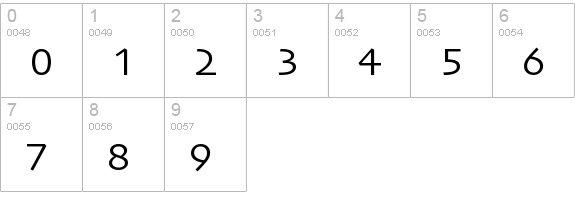
Skia Regular is the standard, neutral variant in the Skia typeface family \xE2\x80\x94 well suited to general body text, paragraphs, and standard typographic work.
Skia Regular font is a versatile and stylish typeface that is perfect for a wide range of design projects. With its clean and balanced letterforms, Skia Regular exudes a sense of elegance and professionalism. This font features a classic and timeless aesthetic, making it suitable for both modern and traditional designs. Its readability and legibility ensure that your message will be communicated clearly and effectively. Skia Regular is available in a range of weights and styles, allowing for flexibility and creativity in your designs. Whether you are designing a logo, creating a website, or crafting a printed piece, Skia Regular will add a touch of sophistication to your work. One of the best things about Skia Regular is that it is free to download at FontsMarket.com. This means that you can use this high-quality font in your projects without having to worry about any licensing fees or restrictions. It is freely available for personal and commercial use, making it an excellent choice for designers on a budget. Don't miss out on the opportunity to enhance your designs with the timeless beauty of Skia Regular font. Download it for free at FontsMarket.com and take your designs to the next level.